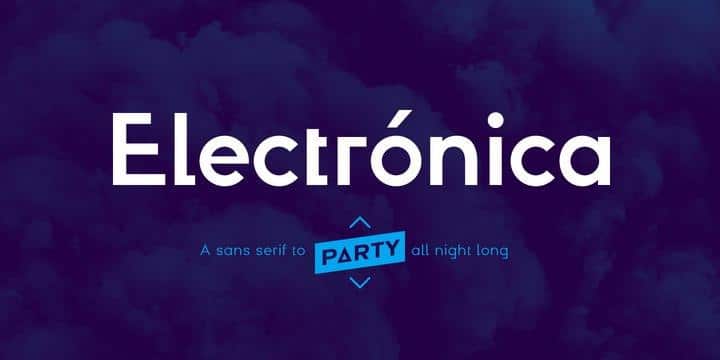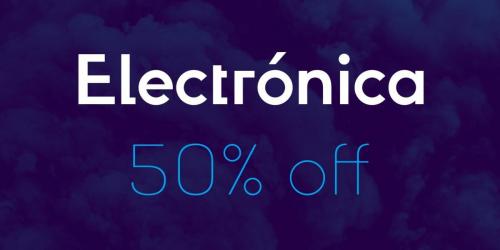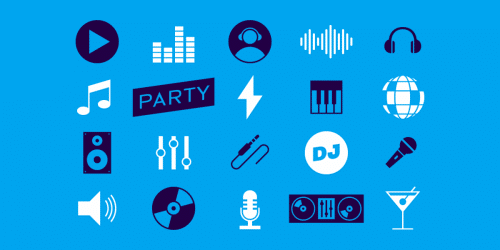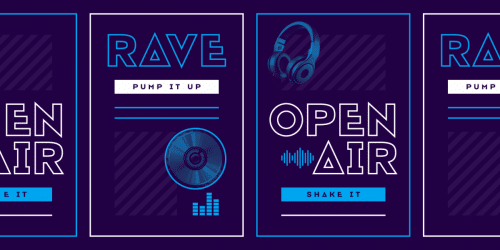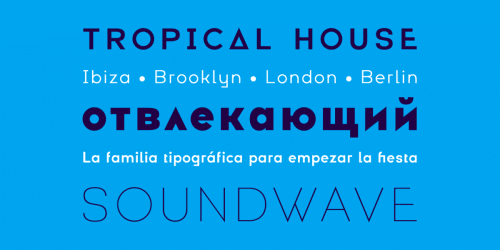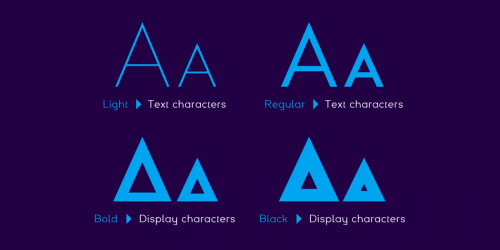
Electrónica font family has been designed for Graviton Font Foundry by Pablo Balcells in 2019. It is a rounded, geometric sans serif typeface with display details and sharp, playful shapes for a fun and laid back usage. Electrónica has been conceived to be most suitable for logos, headlines and display design pieces as well as short length text blocks.
Electrónica consists of 12 styles, 8 of which containing small caps and glyph coverage for several language and 4 of which are free.